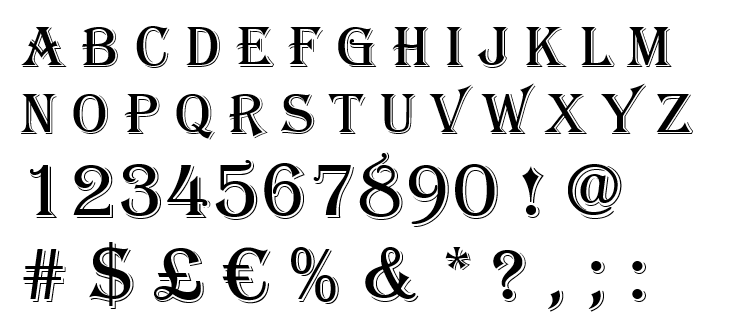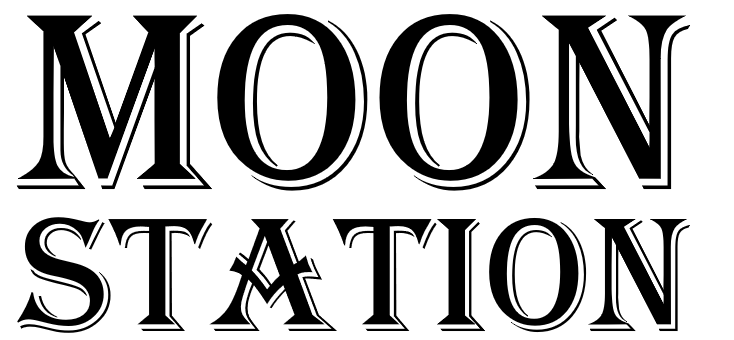
Algerian traces its origins to the British foundry, Stephenson Blake and Co., in 1911. In the mid-1980s, URW digitized Algerian. The style in Algerian typifies the writing on signs in Spain and countries/regions on the north coast of Africa, possibly reflecting the influence of Arabic calligraphers and signmakers. More decorative than its Latin counterpart, traditional Arabic calligraphy is characterized by an ornamental flavor used to enhance individual characters and sometimes whole pages.
Styles & Weights | Algerian |
Designers | URW Studio, 1985, (1911) |
Font vendor | URW Type Foundry |